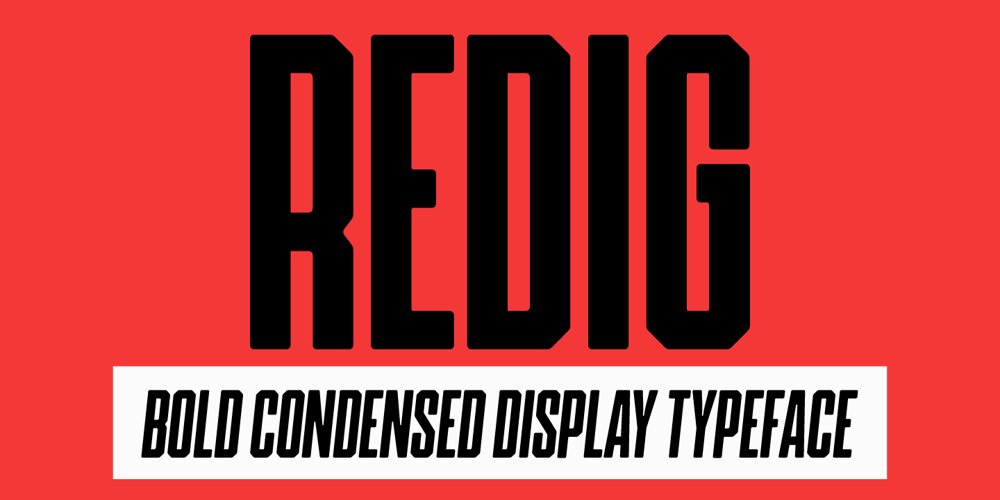
Redig
Redig font
Redig Font Family was designed by Daniel Feldt and published by Great Scott. Redig contains 2 styles and family package options. Redig is a bold condensed display typeface with an assertive and athletic aesthetic. Inspired by newspaper headline typefaces from early 1900s it has chamfered corners with rounded edges that smooths out some harshness and generous x-height to its lower case characters.Redig will shine when used big. And I mean BIG. This is certainly a case when “bigger is better” really is the truth.Redig comes with an oblique style and ligatures and works best in headlines, logos, branding, social media or any display type use. Use it big.